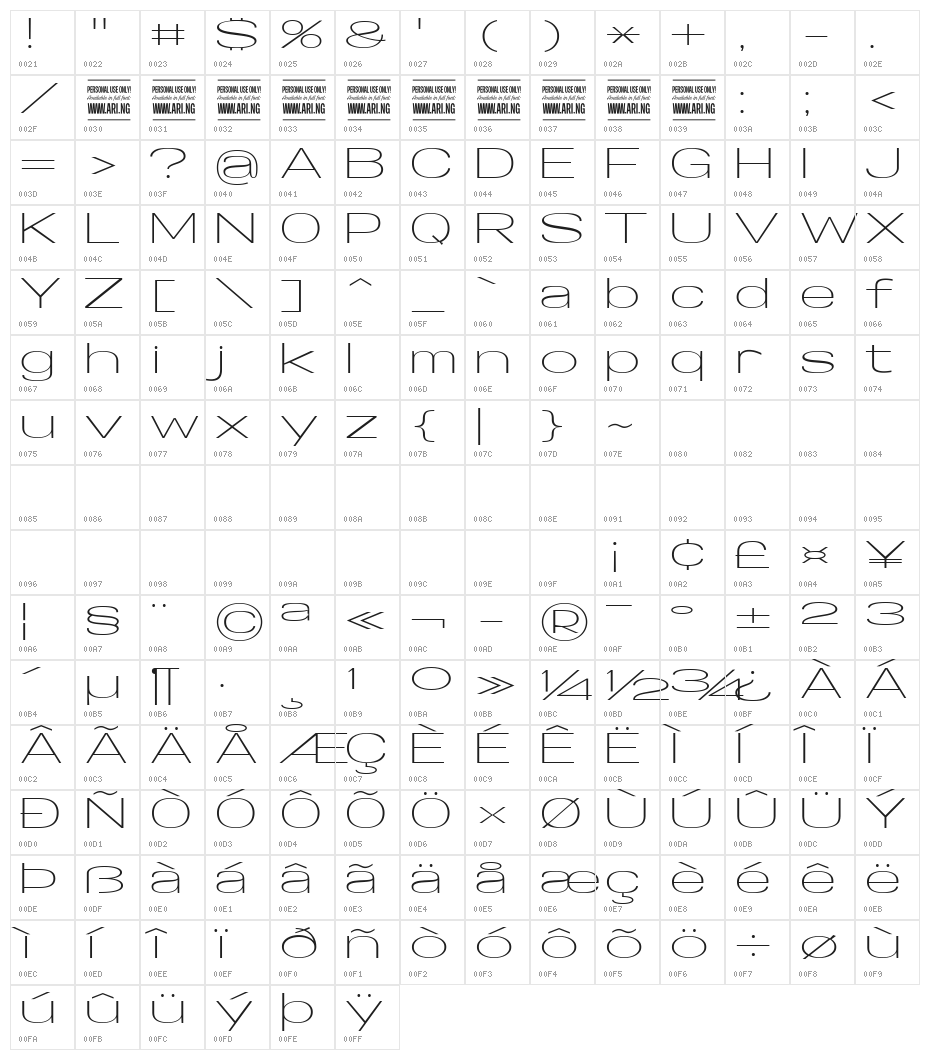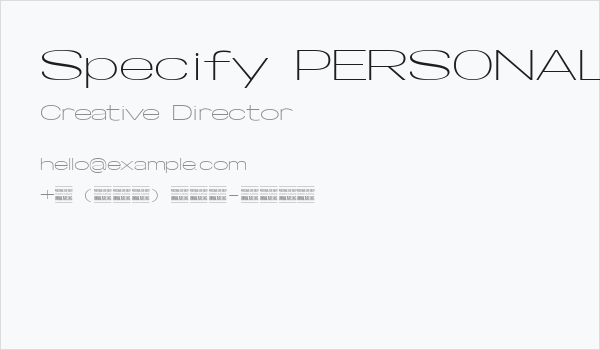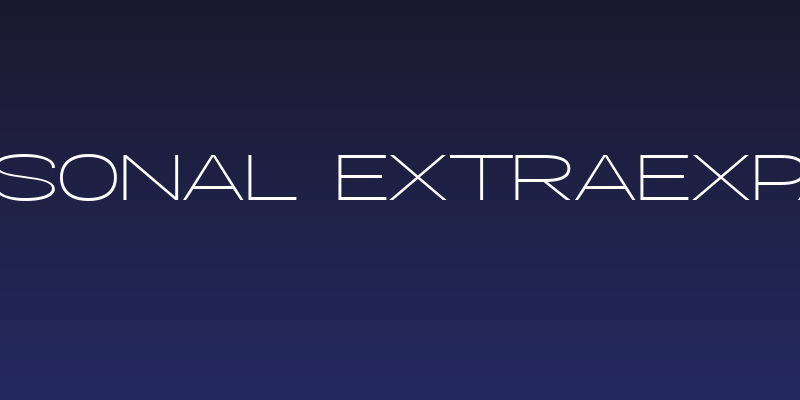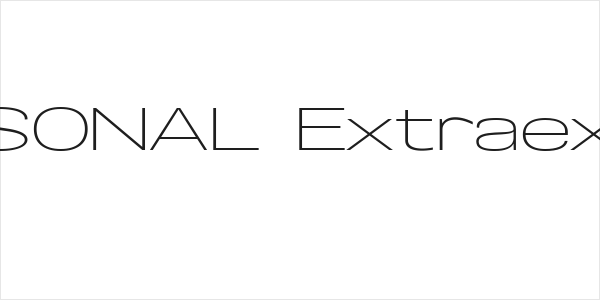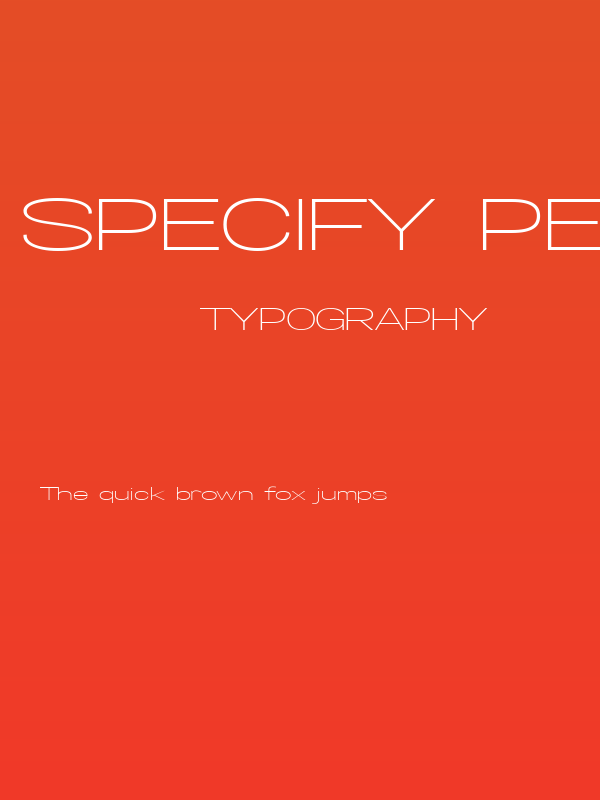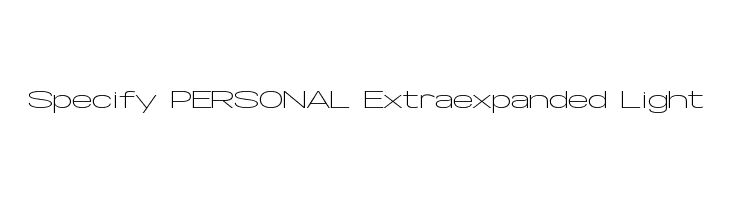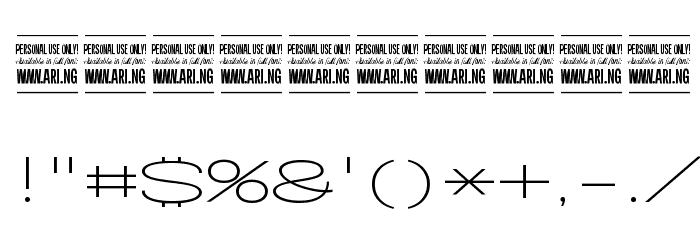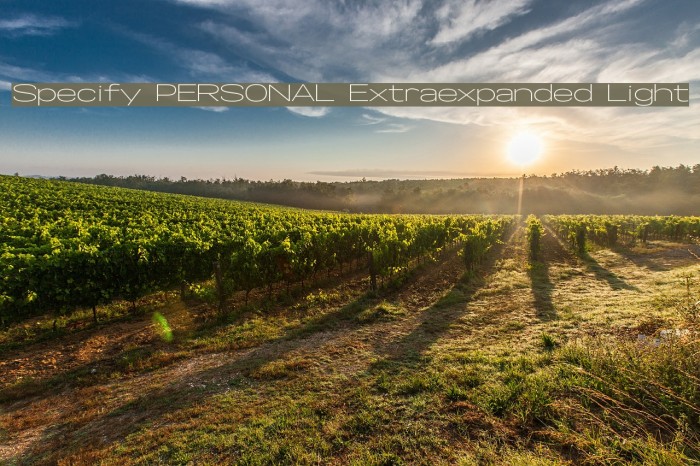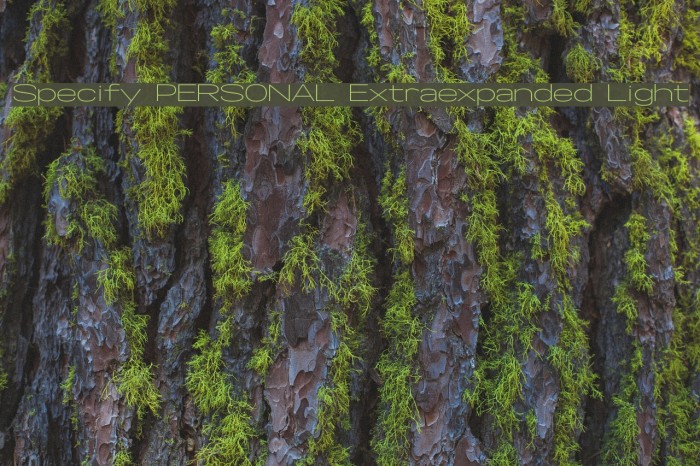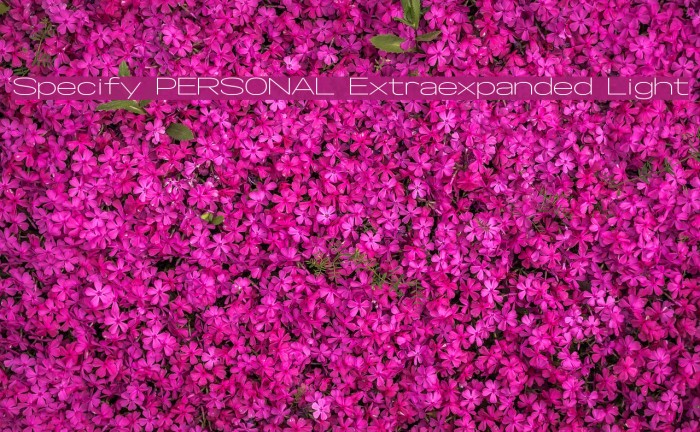
Specify PERSONAL Extraexpanded Light Font
Specify PERSONAL Extraexpanded Light Description
This font features an ultra-lightweight and extra-expanded design, characterized by its sleek and modern aesthetic. The characters are crafted with clean, straight lines and minimal curves, giving it a contemporary and sophisticated look. The uppercase and lowercase letters maintain a consistent height, while the numerals and special characters are designed to complement the overall style. The font's airy and open structure makes it ideal for projects that require a modern and minimalist touch.
| Proposed Projects | Ideal for modern branding, minimalist posters, sleek website headers, and contemporary product packaging. |